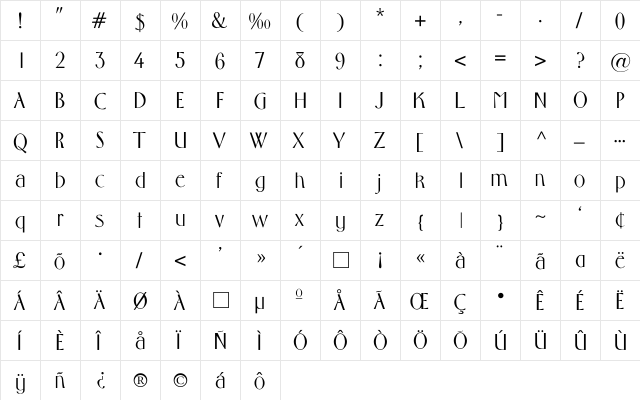
Middleton Regular
Design Context for Middleton Typeface
Middleton takes a measured approach to typography — its balanced proportions and neutral character make it a reliable workhorse for both digital and print work.